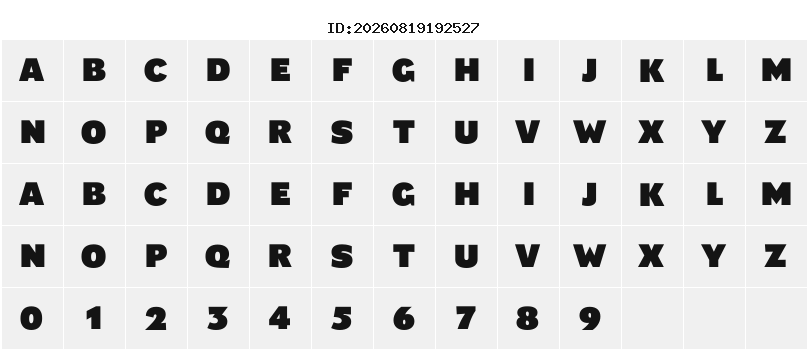
Shire Preview
• Font Name: Shire
• Full Font Name: Shire-Derbyshire
• PostScript Name: Shire-Derbyshire
About Shire.ttf
Shire.ttf is a modern, elegant sans-serif font designed for ultimate readability and visual harmony. Perfect for branding, headlines, web design, and print materials.